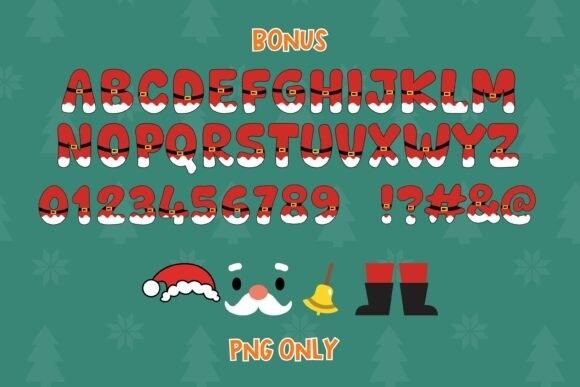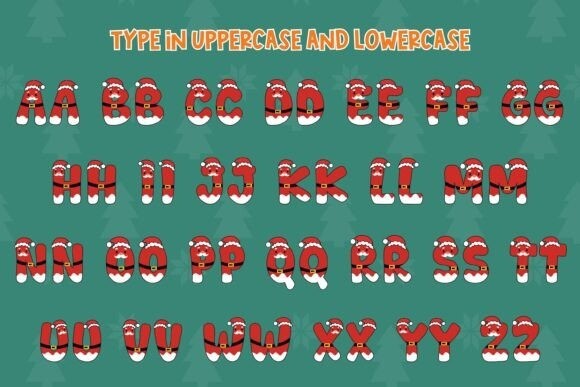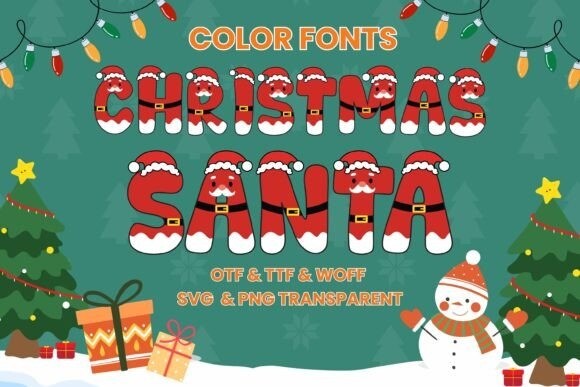
Christmas Santa Font
Christmas Santa, a vivid and playful color font that brings a touch of enchantment to every Christmas-themed design. Its captivating character effortlessly melds with t-shirt designs, digital imprints, craft creations, decorative cards, and extensive projects.